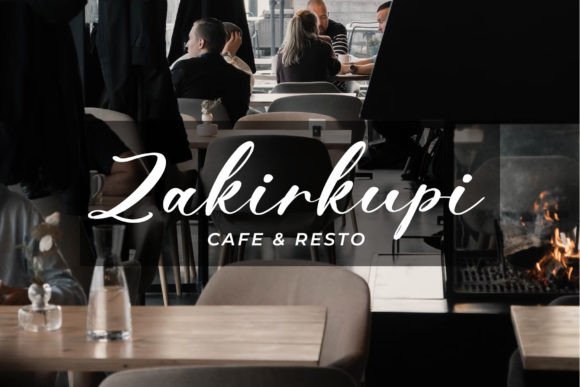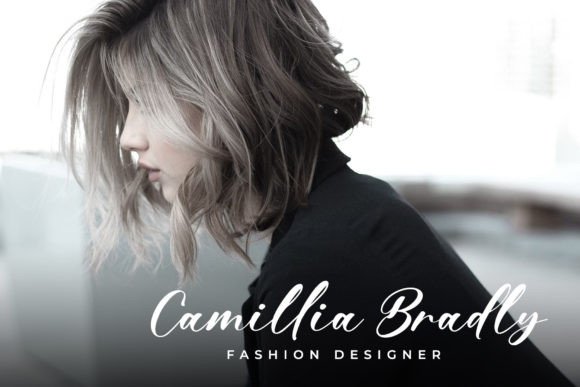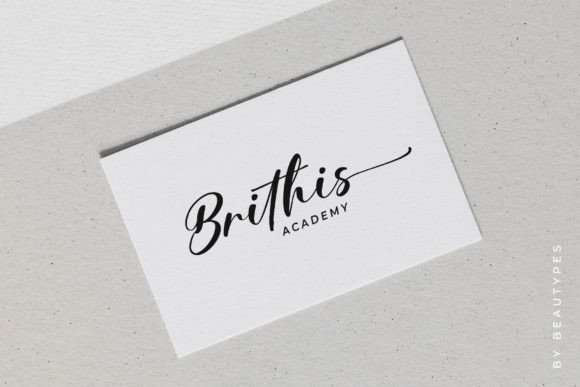
Introduction to Rosthany Font
Have you ever been in a creative flow, where ideas just pour out of your mind, and all you need is the right tool to bring them to life? That’s exactly what happens when you stumble upon the perfect font. For designers, finding that elusive font can be a game-changer. And, if you’re lucky, it might just be the Rosthany Font.
This beautiful, organic handwritten font is a treasure trove for designers. With its high quality and free download options, it’s an instant addition to any creative project. Whether you’re crafting a signature, designing a wedding invitation, or creating a product packaging that stands out, Rosthany Font is the perfect design resource. Its transparent background and elegant script make it an ideal choice for branding and promotion needs.
What sets Rosthany Font apart is its versatility and charm. It’s a font that can elevate even the simplest of designs, making it a valuable addition to any designer’s toolkit.
Key Features of Rosthany Font
- High-quality design for creative projects: Rosthany Font is a perfect choice for designers looking for a unique and stylish font to elevate their design resource.
- Transparent background: The transparent background of Rosthany Font allows for seamless integration with other design elements, making it ideal for creative projects.
- Unique characteristics: Rosthany Font features a unique blend of modern and vintage elements, making it a standout design resource for creative projects.
- Perfect for design resource: Whether you’re working on a logo, poster, or brochure, Rosthany Font is a high-quality design resource that can add a touch of sophistication to your design.
Honest Review: Rosthany Font
I recently stumbled upon the Rosthany Font, and I must say, it’s a great addition to any designer’s toolkit. This high-quality font is perfect for designers working on creative projects that require a unique touch. The best part? It’s available for free download, making it an excellent design resource for those on a budget.
The font features a transparent background, which is ideal for designers who want to create visually appealing graphics and designs without any unnecessary clutter. The clean and modern design of the Rosthany Font makes it suitable for a wide range of applications, from business cards to logos and branding materials.
Here are some of the things that work well with the Rosthany Font:
- Transparent background for easy design customization
- Modern and clean design suitable for various applications
However, I do have a few concerns:
- ⚠️ Limited font sizes and styles available
- ⚠️ Not ideal for designers who require a wide range of font variations
Overall, the Rosthany Font is a great addition to any designer’s toolkit. While it may have some limitations, its high-quality design and free download make it an excellent choice for designers working on creative projects.
Tips for Getting the Most Out of Rosthany Font
Experiment with different font sizes and styles to create a unique look. Use the Rosthany Font in combination with other design elements to add visual interest to your design project.
The Rosthany Font is ideal for creative projects such as logos, brochures, and business cards. It’s also great for creating high-quality presentations and documents.
Great Vibes Font is a high-quality, elegant script font perfect for creative projects that require a touch of sophistication. It’s available for free download and features a transparent background, making it ideal for use on various design elements. When to use: wedding invitations, luxury branding, and high-end marketing materials. Great Vibes Font compares to Rosthany Font in its elegant and refined look, but has a more classic feel.
Yes, the Rosthany Font has a transparent background, making it easy to use in various design scenarios. The transparent background allows the font to blend seamlessly with other design elements, giving you more creative freedom in your projects.